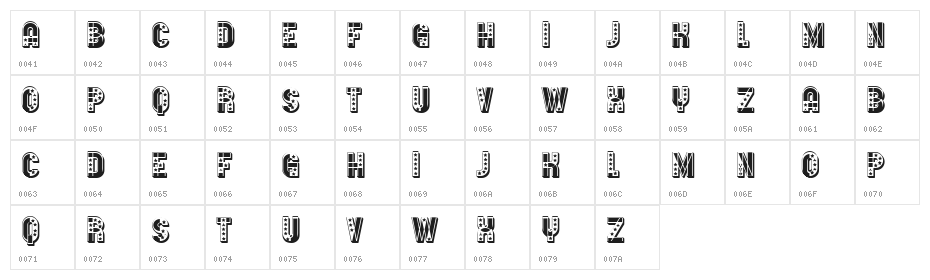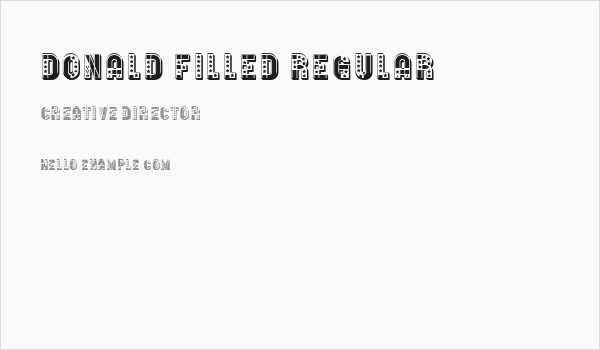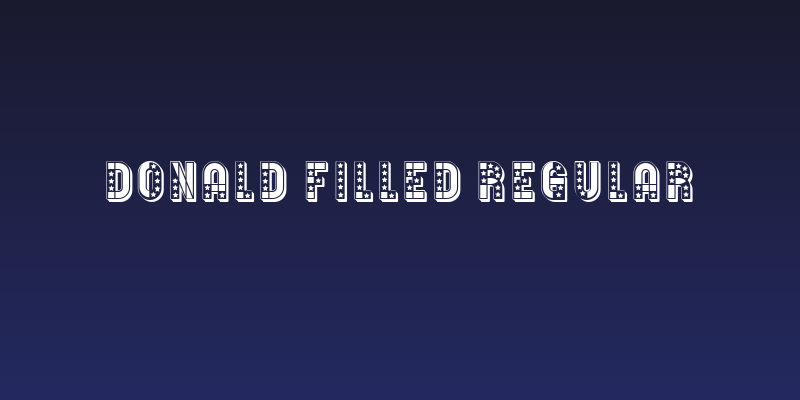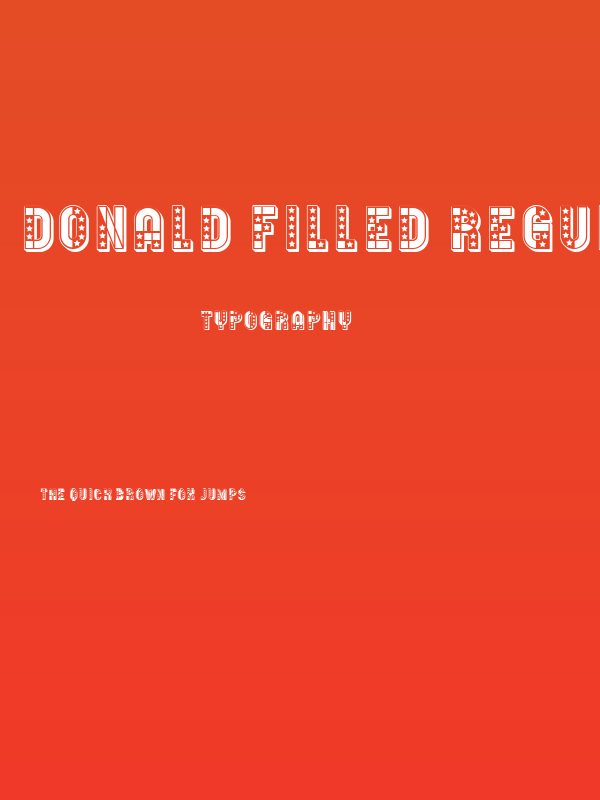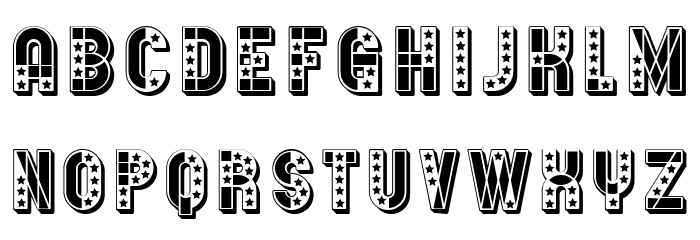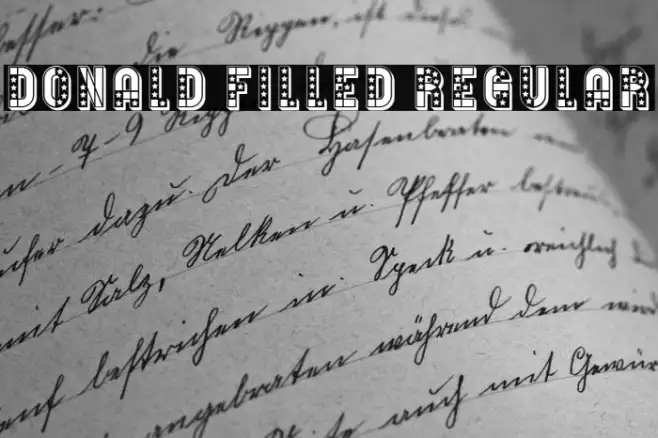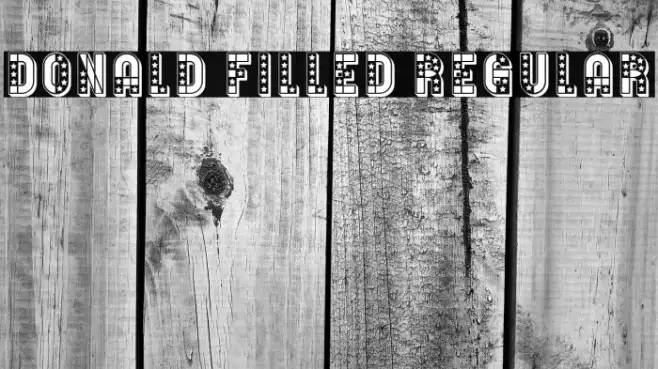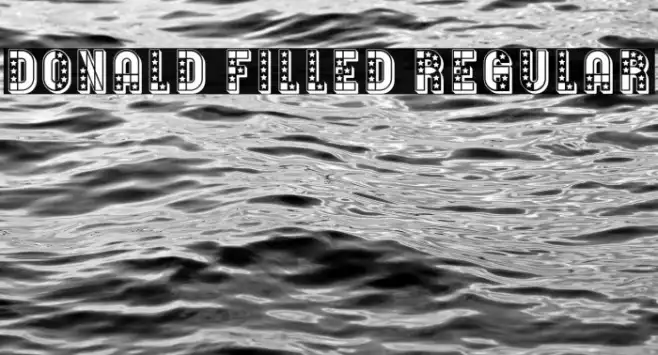
Donald Filled Regular Font
Donald Filled Regular Description
This font features a bold, decorative style with a unique filled pattern of stars within each character. The letters are uppercase and have a strong, impactful presence, making them ideal for attention-grabbing designs. The star-filled design adds a playful and patriotic touch, suitable for themed projects. The font's structure is solid and well-defined, with each character maintaining a consistent width and height. The bold outlines enhance the visibility of the star pattern, creating a striking visual effect.
| Proposed Projects | Ideal for posters, banners, event invitations, and any project requiring a bold, thematic statement. |